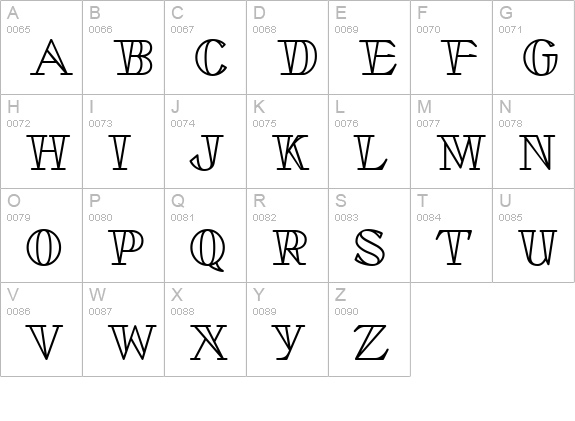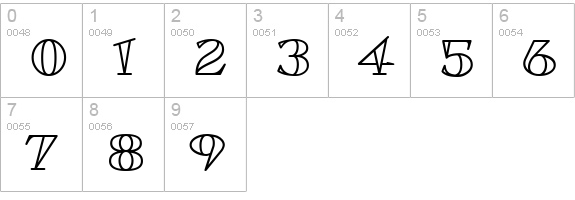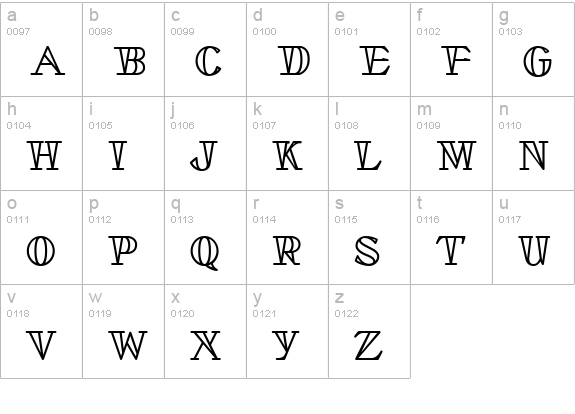
Stella Dallas Outline Font Details
Stella Dallas Outline font is a stylish and modern typeface that is perfect for adding a touch of elegance and sophistication to your designs. With its clean lines and delicate outlines, this font is sure to make a statement. Whether you are working on a logo, poster, or branding project, Stella Dallas Outline font will help you stand out from the crowd. Best of all, Stella Dallas Outline font is available for free download at FontsMarket.com. So you can easily add this beautiful font to your collection without breaking the bank. Don't miss out on the opportunity to enhance your designs with this stunning typeface. Download Stella Dallas Outline font today and start creating eye-catching designs!